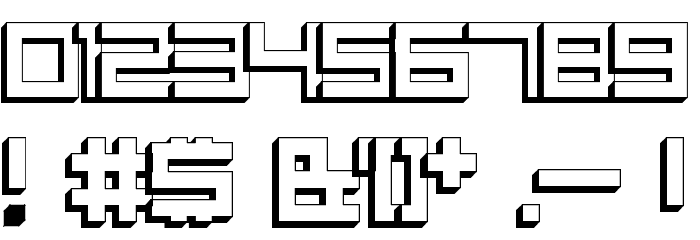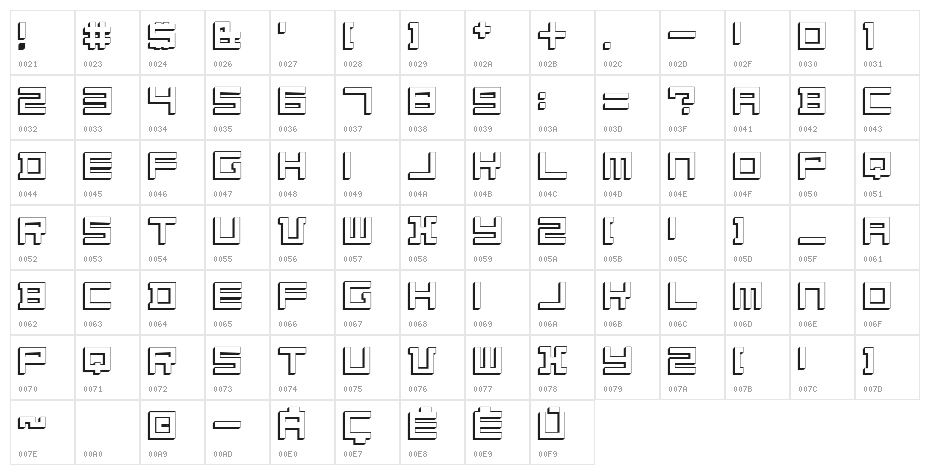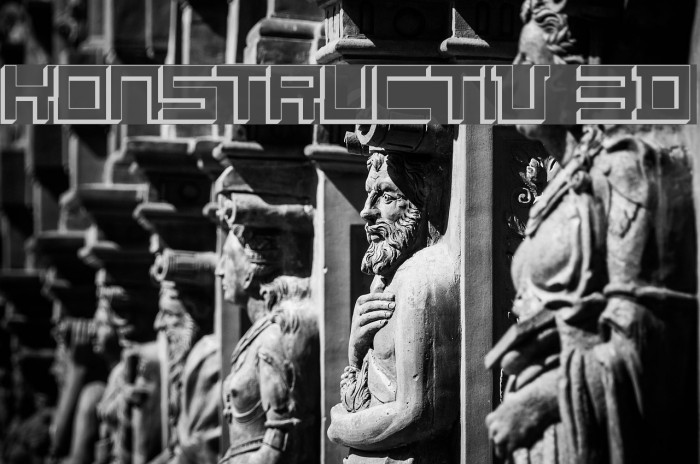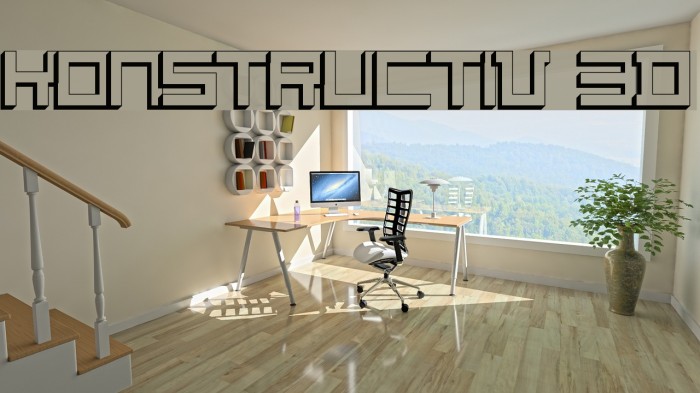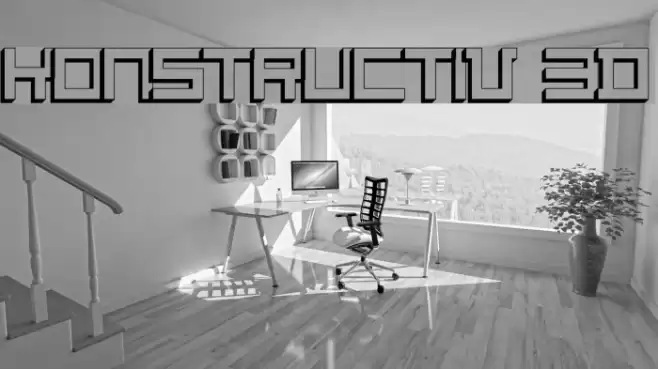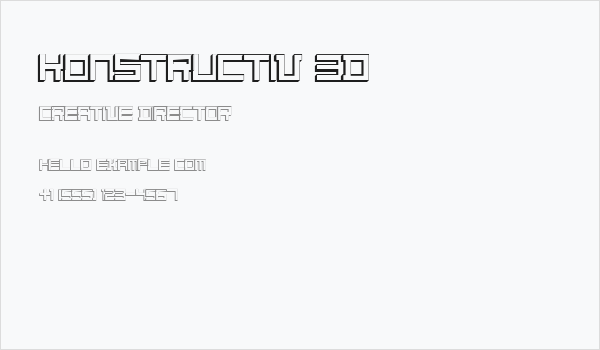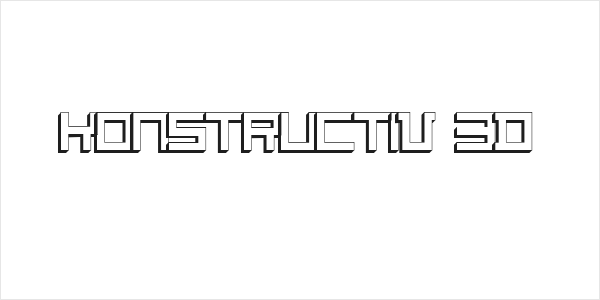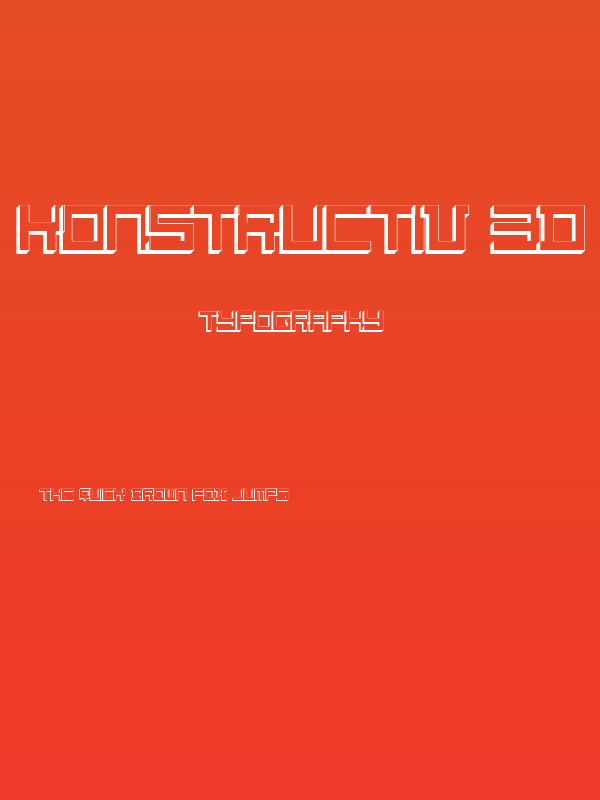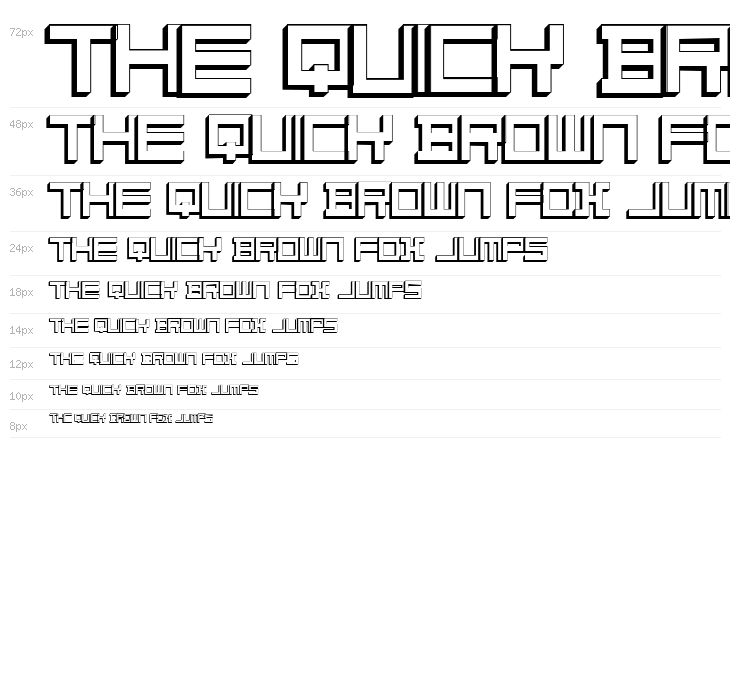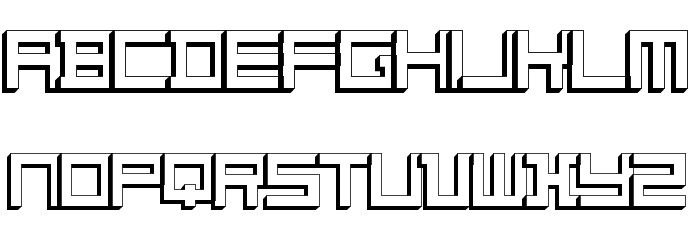
Konstructiv 3D Font
Konstructiv 3D Description
This font exhibits a bold, three-dimensional geometric style with a distinct blocky appearance. Each character is outlined, creating a shadow effect that enhances its 3D look. The design is highly structured, with sharp angles and clean lines, giving it a futuristic and industrial feel. The uppercase and lowercase letters maintain a consistent height, contributing to a uniform and cohesive appearance. Numbers and special characters follow the same design principles, ensuring visual harmony across all elements. This font is particularly striking and eye-catching, making it suitable for projects that require a strong visual impact.
| Proposed Projects | Ideal for video game titles, tech branding, posters, and futuristic-themed designs. |